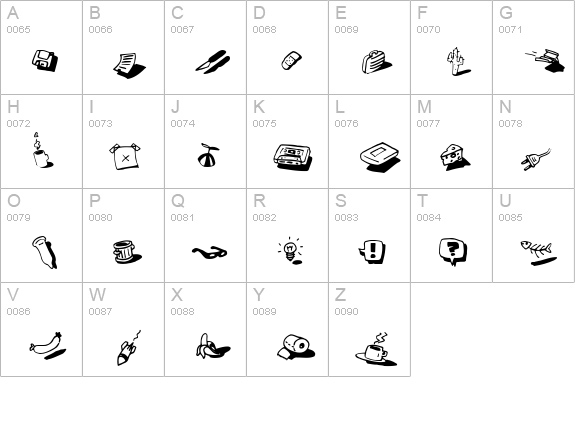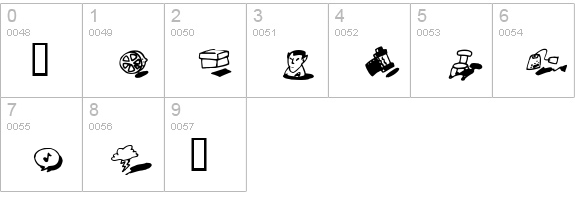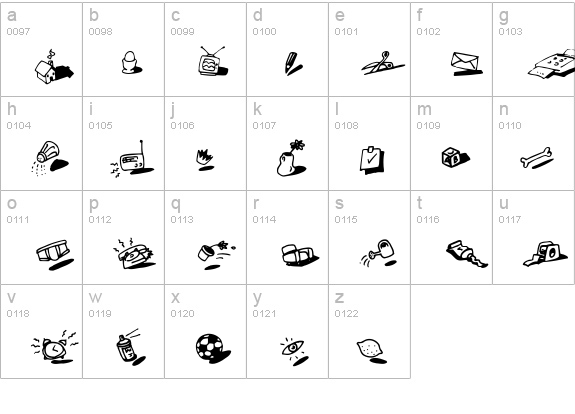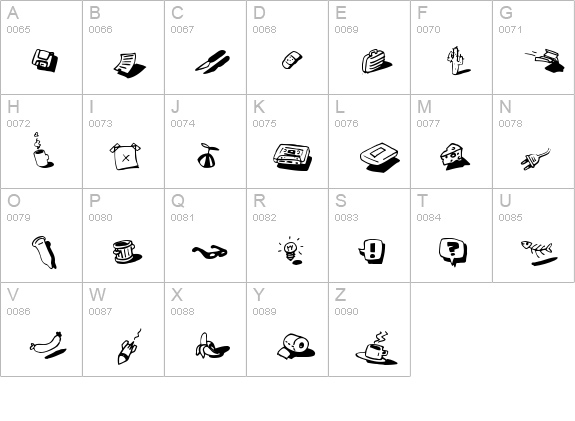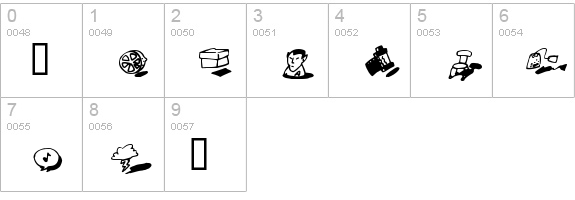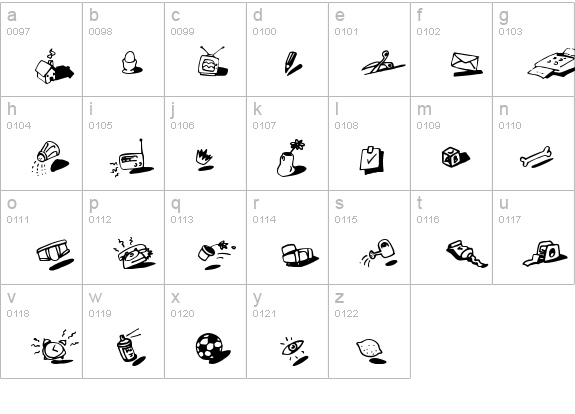
yodle Font Details
Introducing Yodle Font - a modern and stylish typeface that exudes elegance and sophistication. With its sleek lines and unique curves, Yodle Font is perfect for a wide range of design projects, from branding to packaging to social media graphics. What sets Yodle Font apart is that it is not only visually stunning, but also completely free to download. That's right, you can get your hands on this beautiful font at no cost at FontsMarket.com. Whether you're a seasoned designer or just starting out, Yodle Font is sure to elevate your creations and make them stand out. Don't miss out on the opportunity to add Yodle Font to your font library today. Download it for free and start creating stunning designs that will leave a lasting impression.